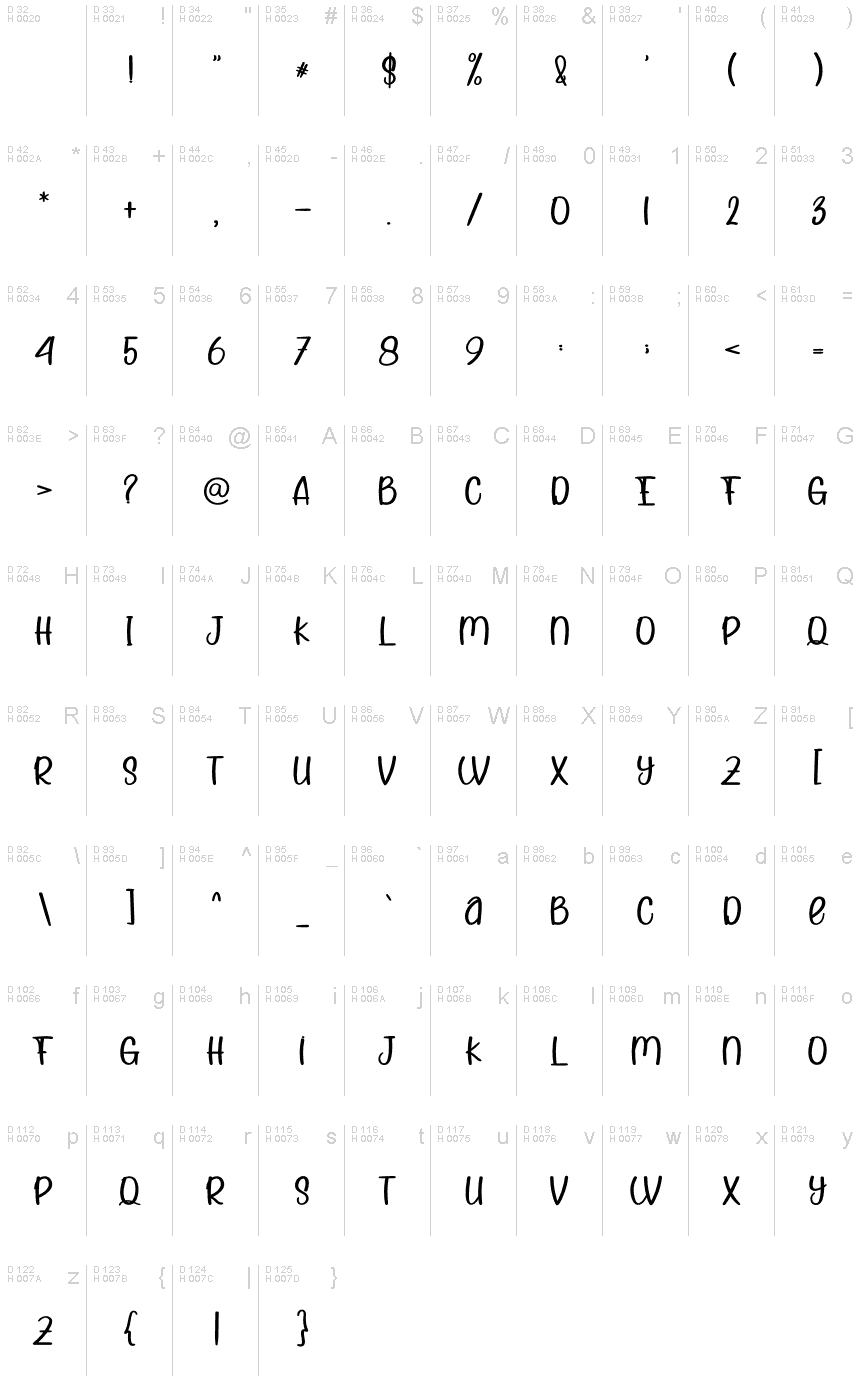
The Farmhouse
The Farmhouse, designed by Etik Fatimah, is a cute handwritten font with a fun and quirky personality.
With its semi-light weight and semi-condensed width, this font adds a touch of uniqueness to any project. Its irregular and playful letterforms create a sense of whimsy and individuality, making it suitable for designs that require a hint of charm. Whether you're working on invitations, greeting cards, or even branding materials for a boutique bakery or vintage-inspired café, The Farmhouse will bring a charming and personal feel to your creative endeavors.